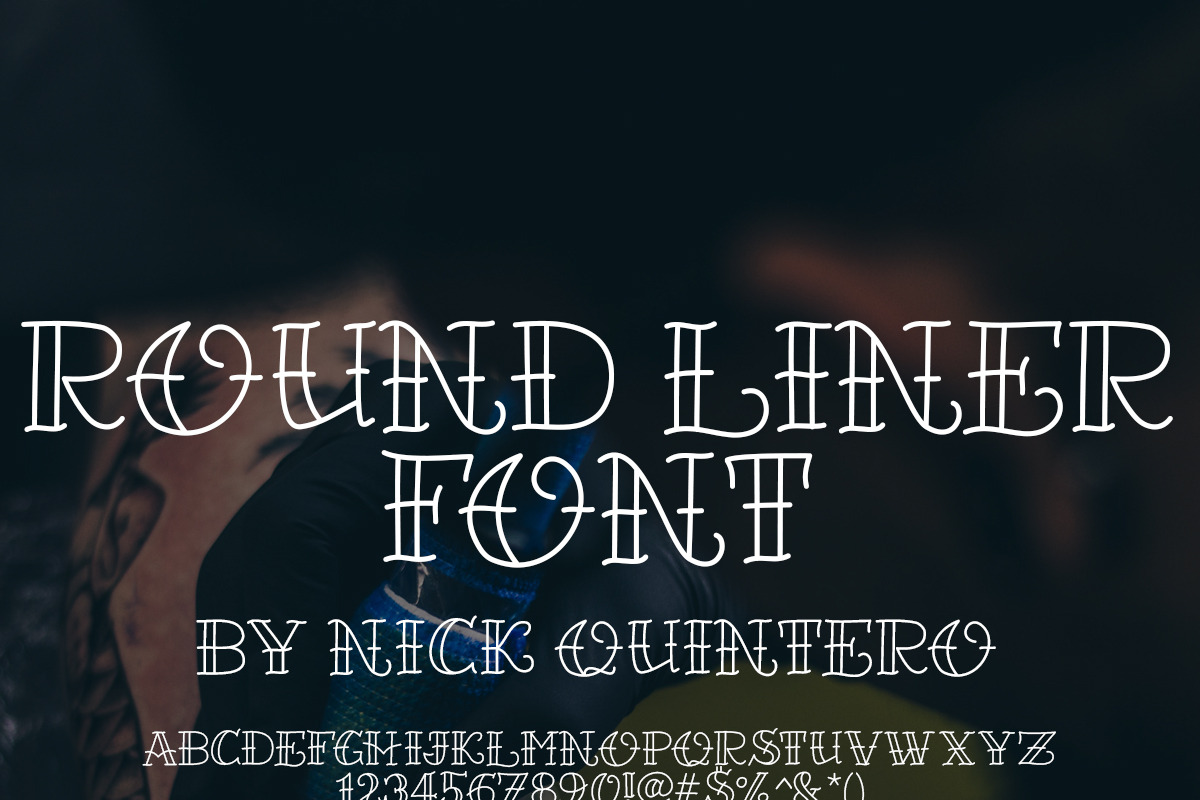
Round Liner Font
The Round Liner font is a hand drawn digital font that is perfect for tattoo designs and other art with an old school feel.
Inspired by traditional artists that works in a modern world.